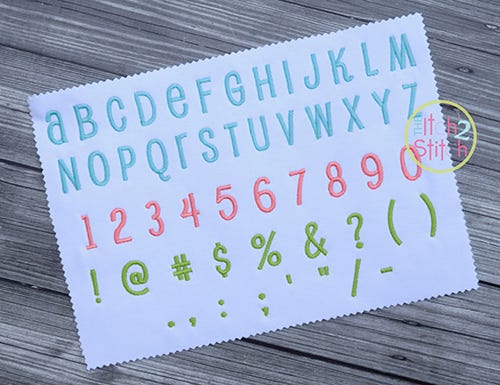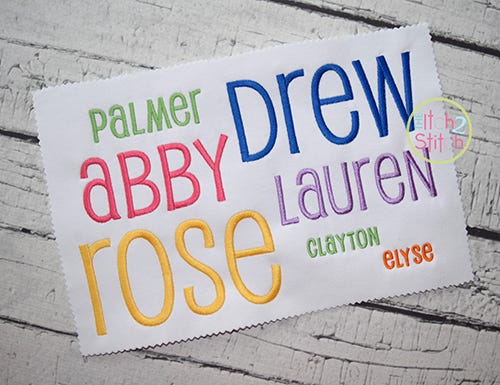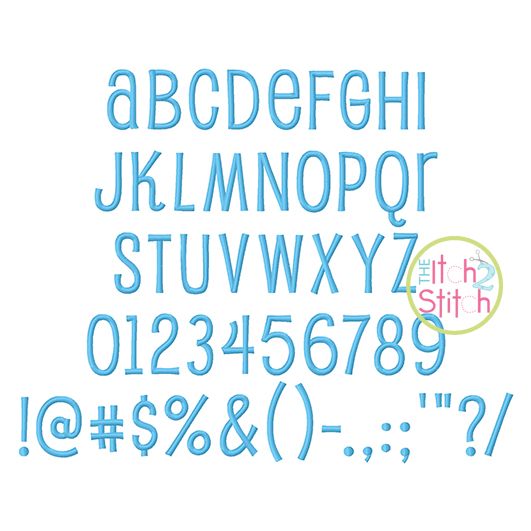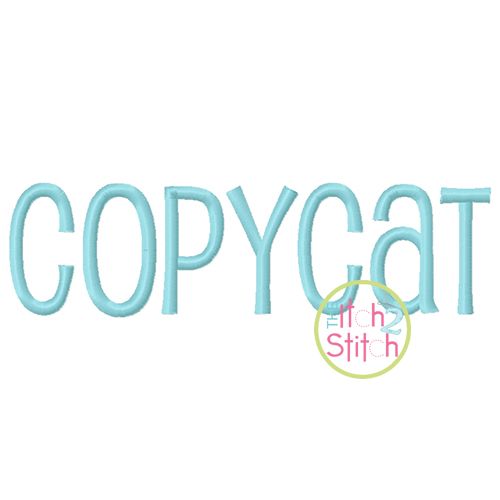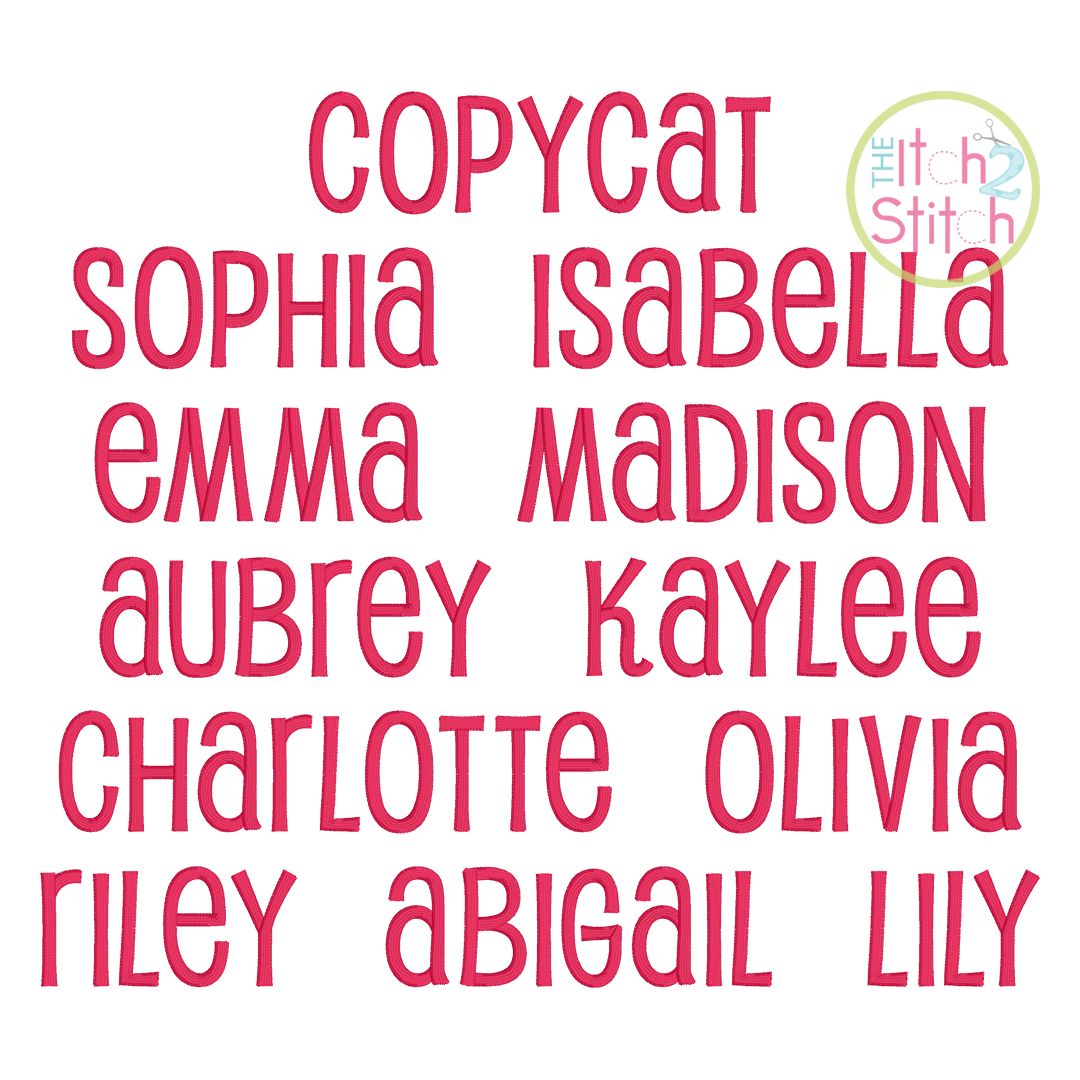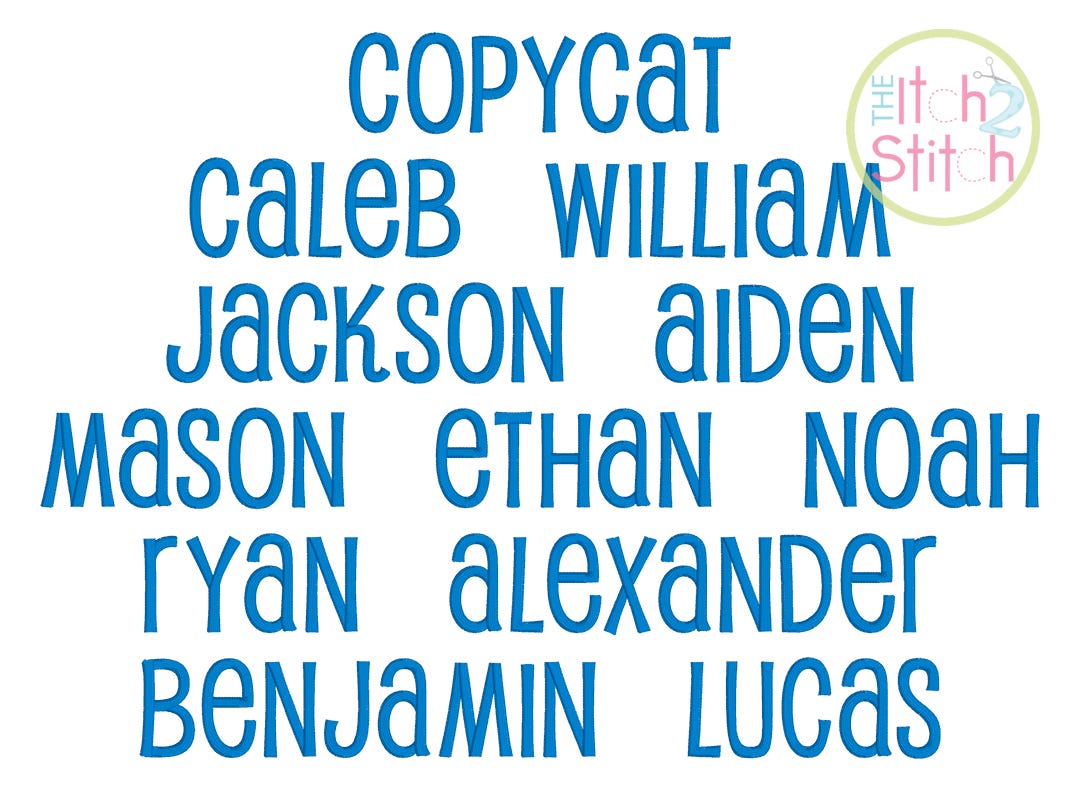
You will receive all A-Z letters, numbers and partial punctuation (53 files) in six sizes. Please note this is a "unicase" font. There is only one design file for each letter of the alphabet. It is a mix of traditional capital and lowercase letters, as pictured. The dots on the punctuation symbols for the 2.5" and 3" sizes feature split satin stitch, but all the lettering for all sizes is completely satin stitch.